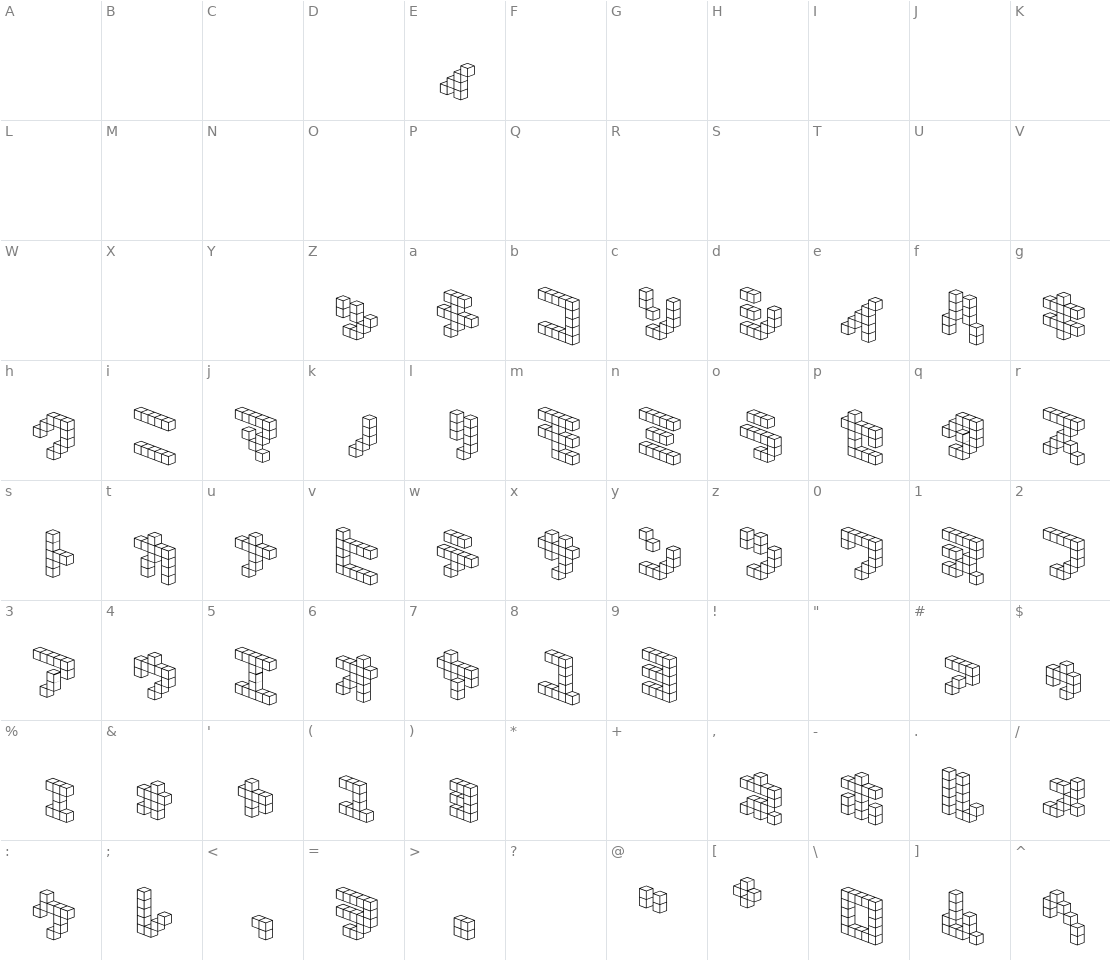
Demon Cubic Block NKP
Demon Cubic Block NKP is a geometric display face from DemonhillFontFactory where every letter is constructed from isometric cube shapes, giving the text a 3D block-building quality that feels like pixel art viewed from an angle. The effect is eye-catching and highly decorative, with each character reading almost like a small architectural structure. Best kept to headlines and short display text where the cubic construction can register clearly.